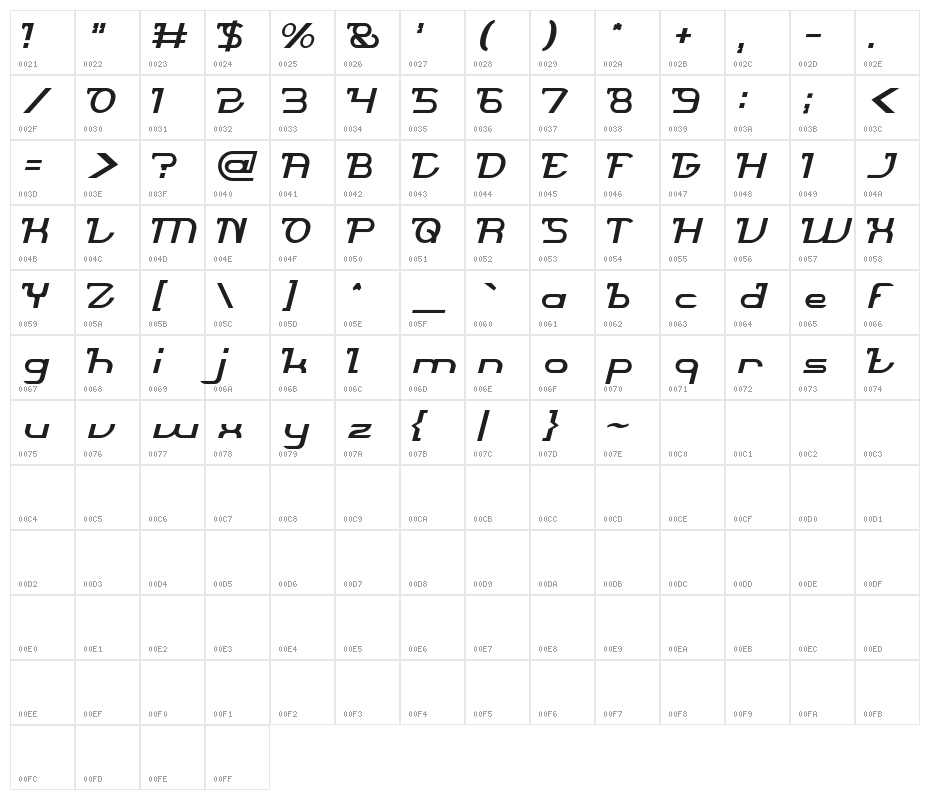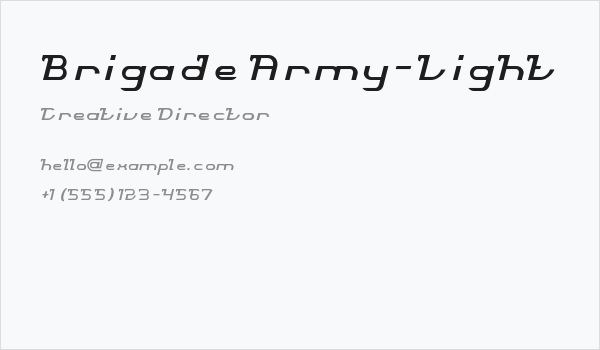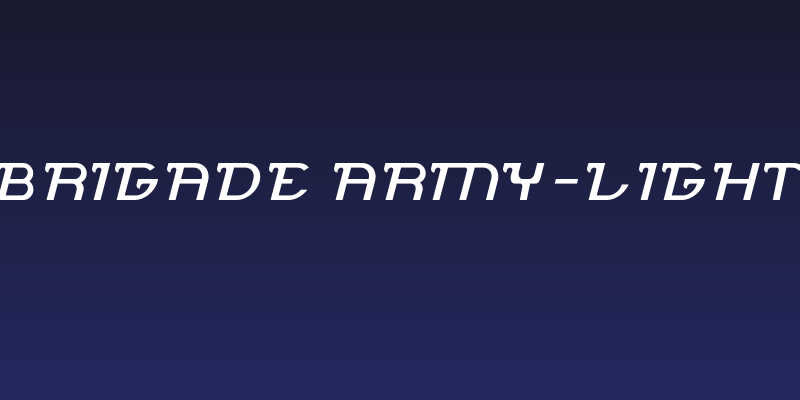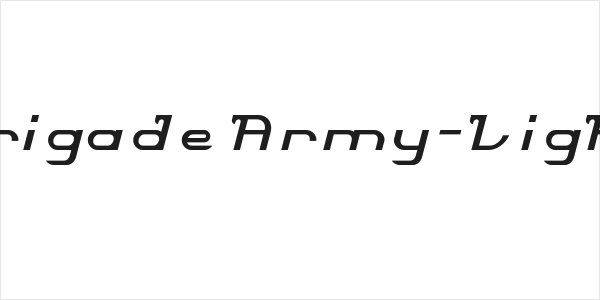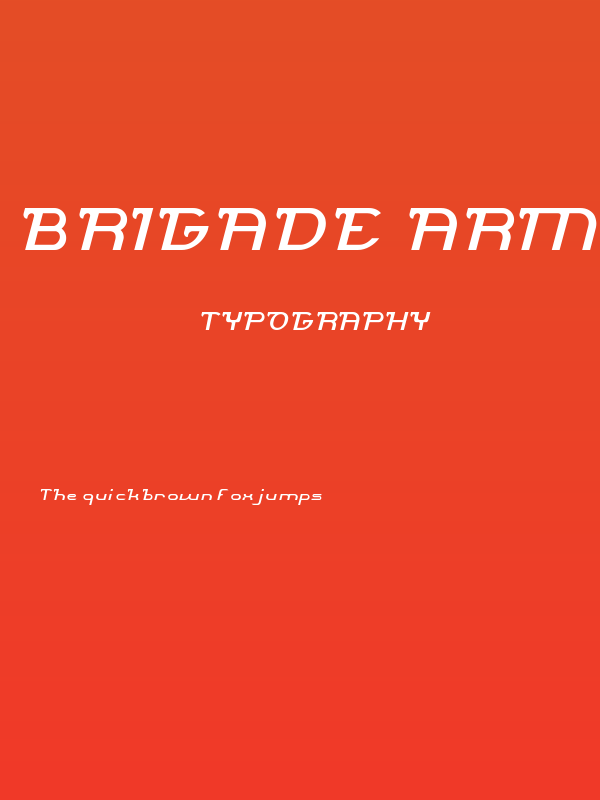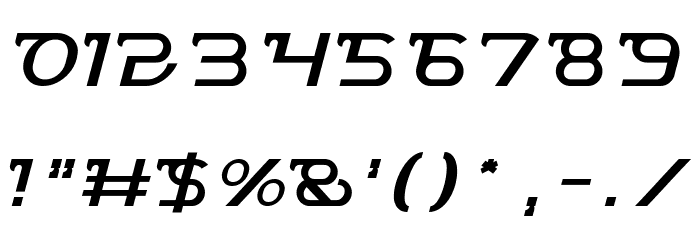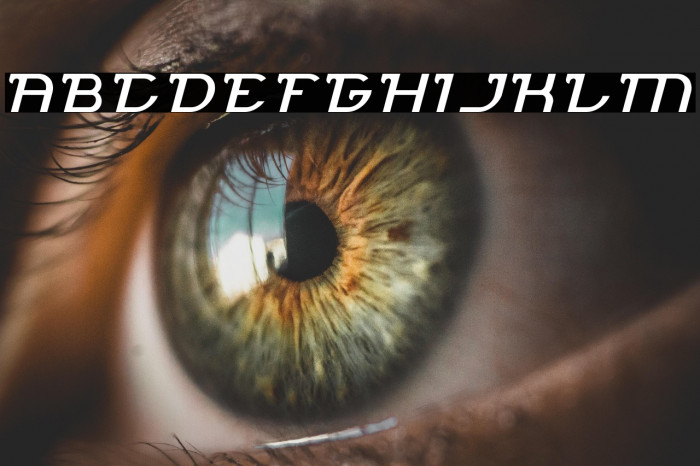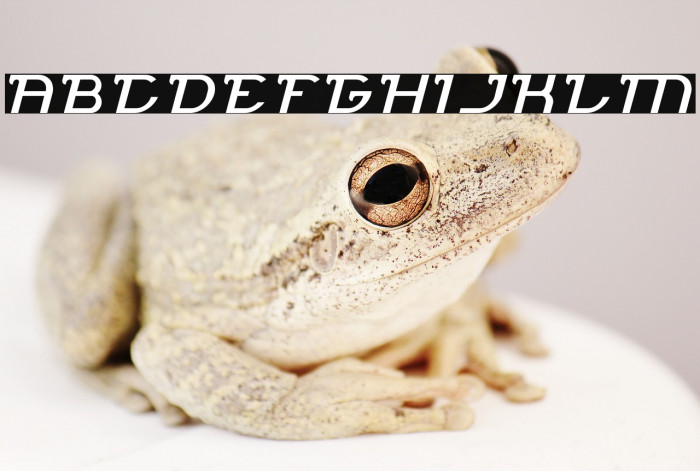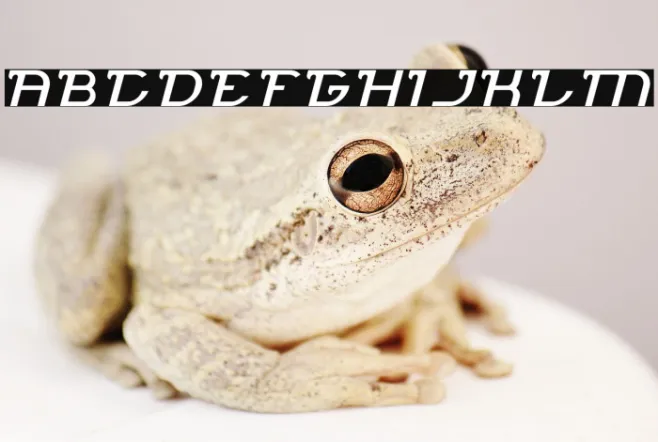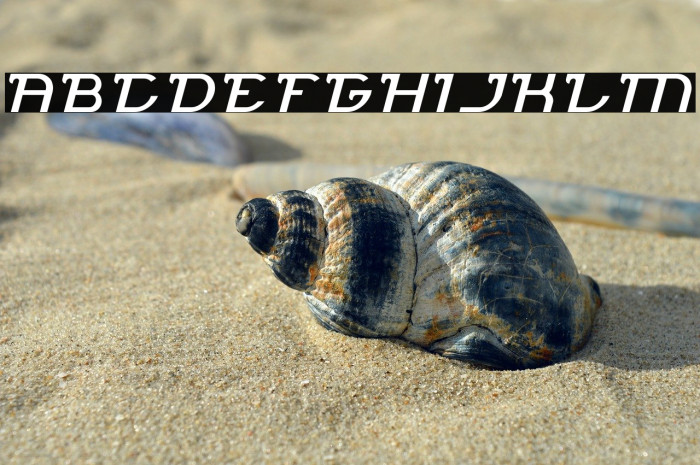
Brigade Army-Light Font
Brigade Army-Light Description
This font exhibits a modern and dynamic style with a slight slant, giving it a sense of motion and energy. The characters are designed with a unique geometric flair, featuring sharp angles and clean lines that create a futuristic appearance. The uppercase letters maintain a consistent height, while the lowercase letters have a slightly more playful and rounded form. The numerals are distinct and easily readable, complementing the overall design. Special characters are crafted with the same attention to detail, ensuring they fit seamlessly with the rest of the typeface. This font's balanced proportions and contemporary aesthetic make it suitable for a variety of design applications.
| Overall Style | Modern, Dynamic |
| Proposed Projects | Ideal for branding, sports team logos, tech-related designs, and dynamic posters. |